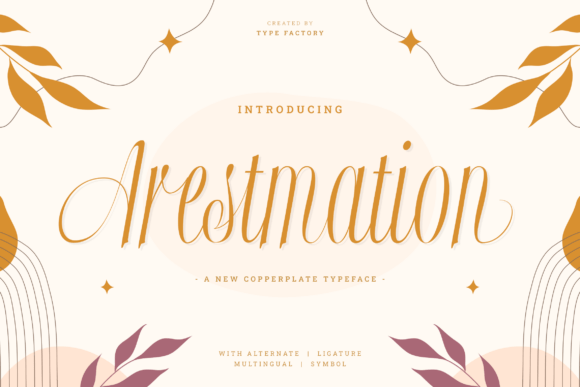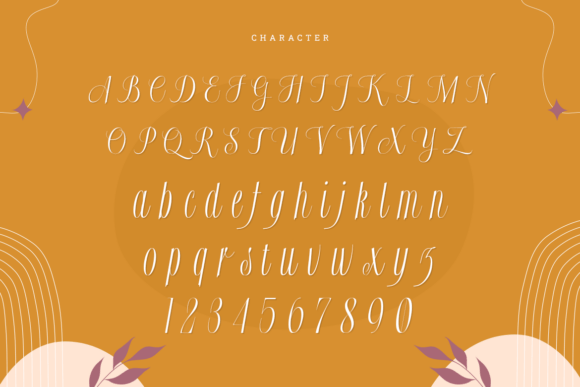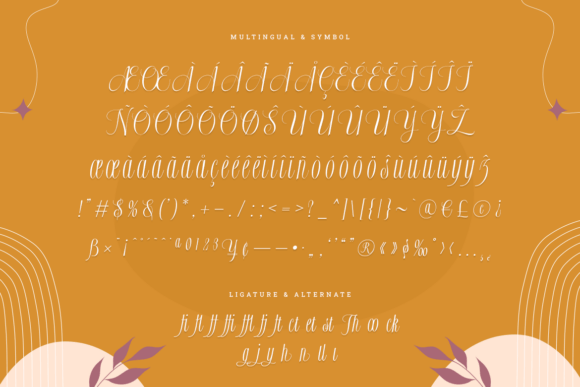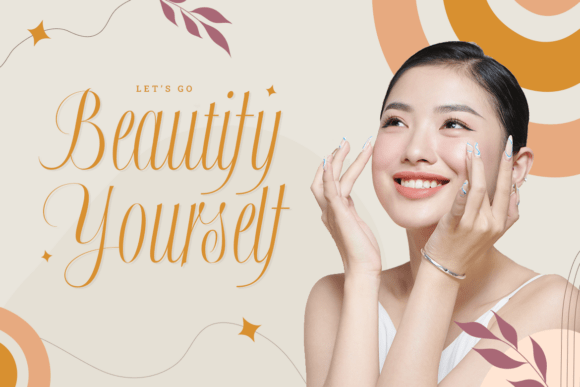
Arestmation Font: Elegant Script Typography for Wedding & Logo Design
About the Arestmation Font
Unleash your creativity with Arestmation Font, a versatile font perfect for a wide range of applications. Arestmation is a refined Copperplate script typeface that embodies elegance, precision, and timeless beauty. With its smooth, flowing strokes and graceful contrast, this modern script font is ideal for wedding invitations, luxury branding, certificates, elegant packaging, and formal stationery. Arestmation draws inspiration from classic penmanship while adding a fresh, contemporary flair—perfect for designs that require a touch of class and sophistication. Let your words shine with Arestmation’s luxurious and polished calligraphic style.